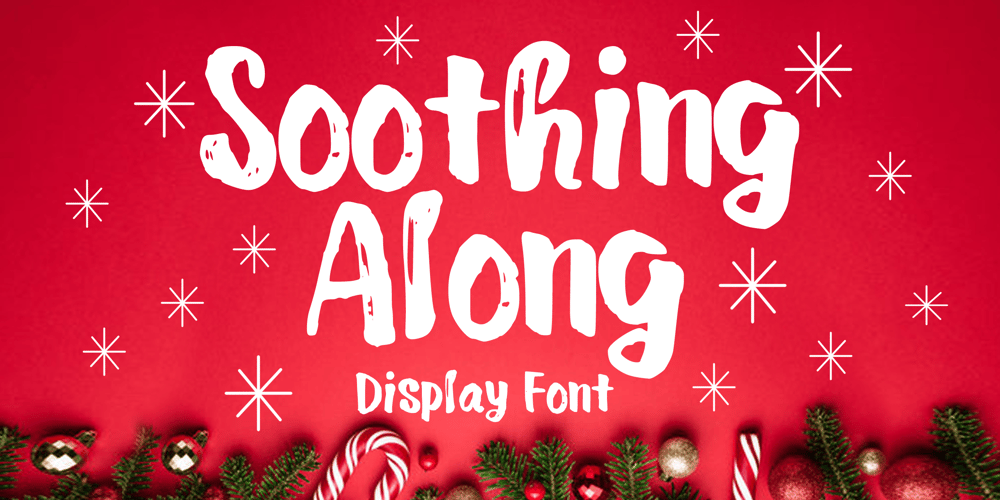
Soothing Along Font Family was designed by Gabriel Valentinus and published by Mvmet. Soothing Along contains 1 styles and family package options. Soothing Along is a fun and playful grunge handmade font. You can use it for anything ranging from t-shirts, book designs, and greeting cards to stickers and posters, or anything that needs a casual touch. If you want to use it for Christmas or Valentine themed designs, it will be your perfect font to pick. Fall in love with its incredibly versatile style, and use it to create lovely designs!